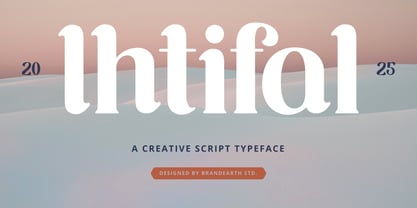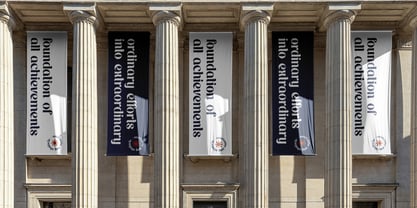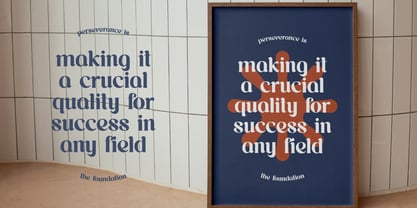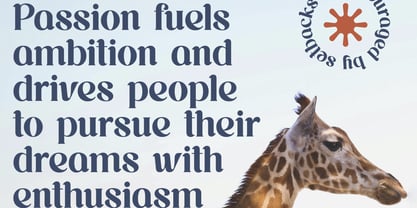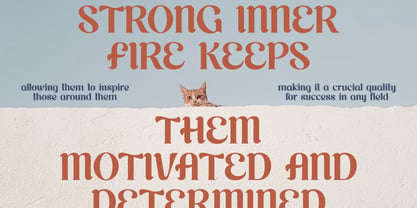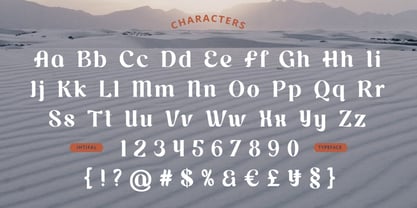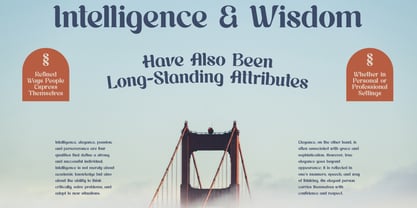
Ihtifal
by Brandearth
The Ihtifal Font Family was designed by Moch Rasjid Wiyono and published by Brandearth. Ihtifal contains 1 styles. More about this family
Ihtifal is a creative script typeface that blends expressive serif curves with soft, sculpted letterforms. The design features distinctive terminals, rounded stroke transitions, and a balanced contrast that creates a warm yet confident presence. Ihtifal is highly relevant for branding projects that require personality and elegance with a creative twist. It works beautifully for fashion labels, beauty campaigns, lifestyle brands, editorial layouts, social media graphics, inspirational quotes, and modern packaging.
Designers: Moch Rasjid Wiyono
Foundry: Brandearth